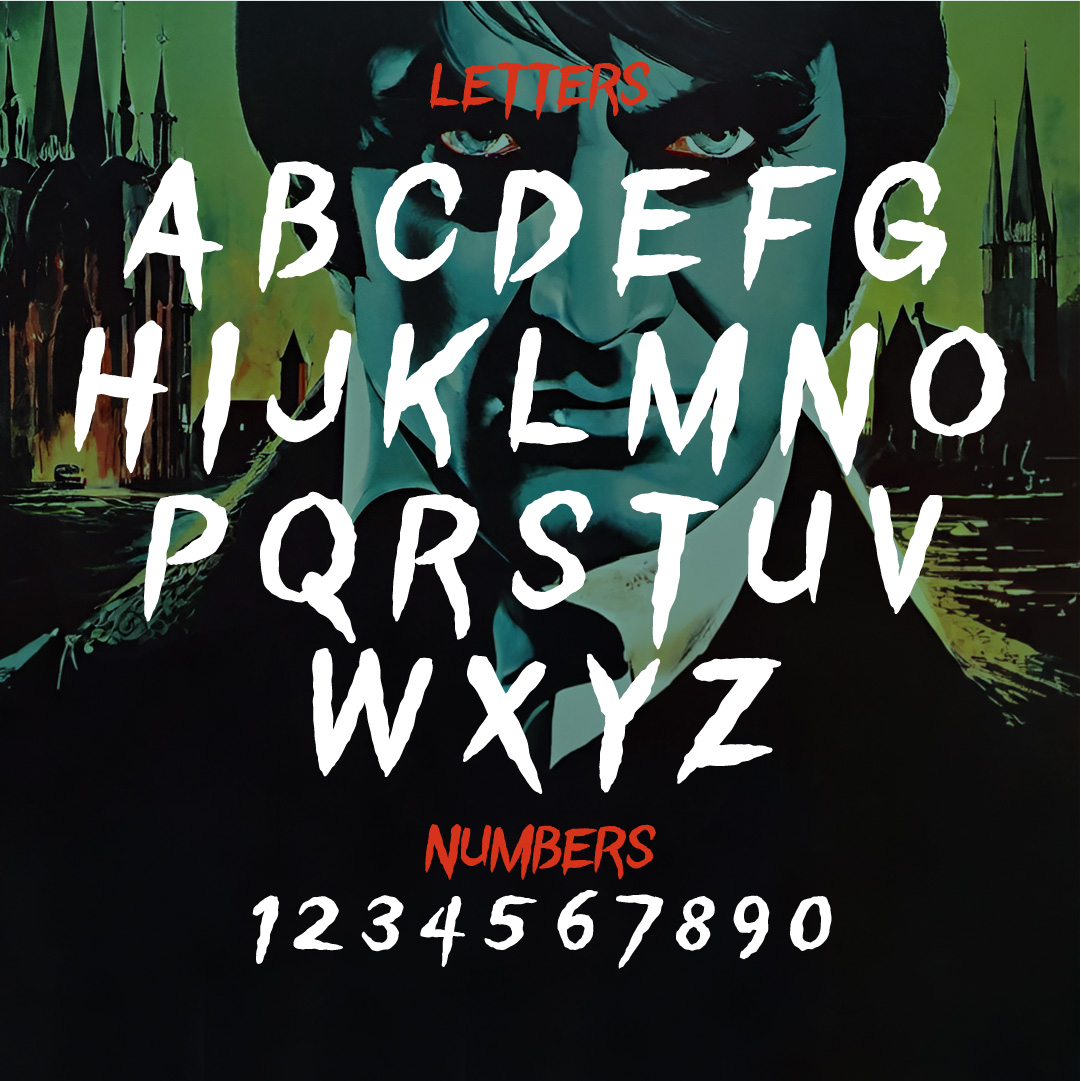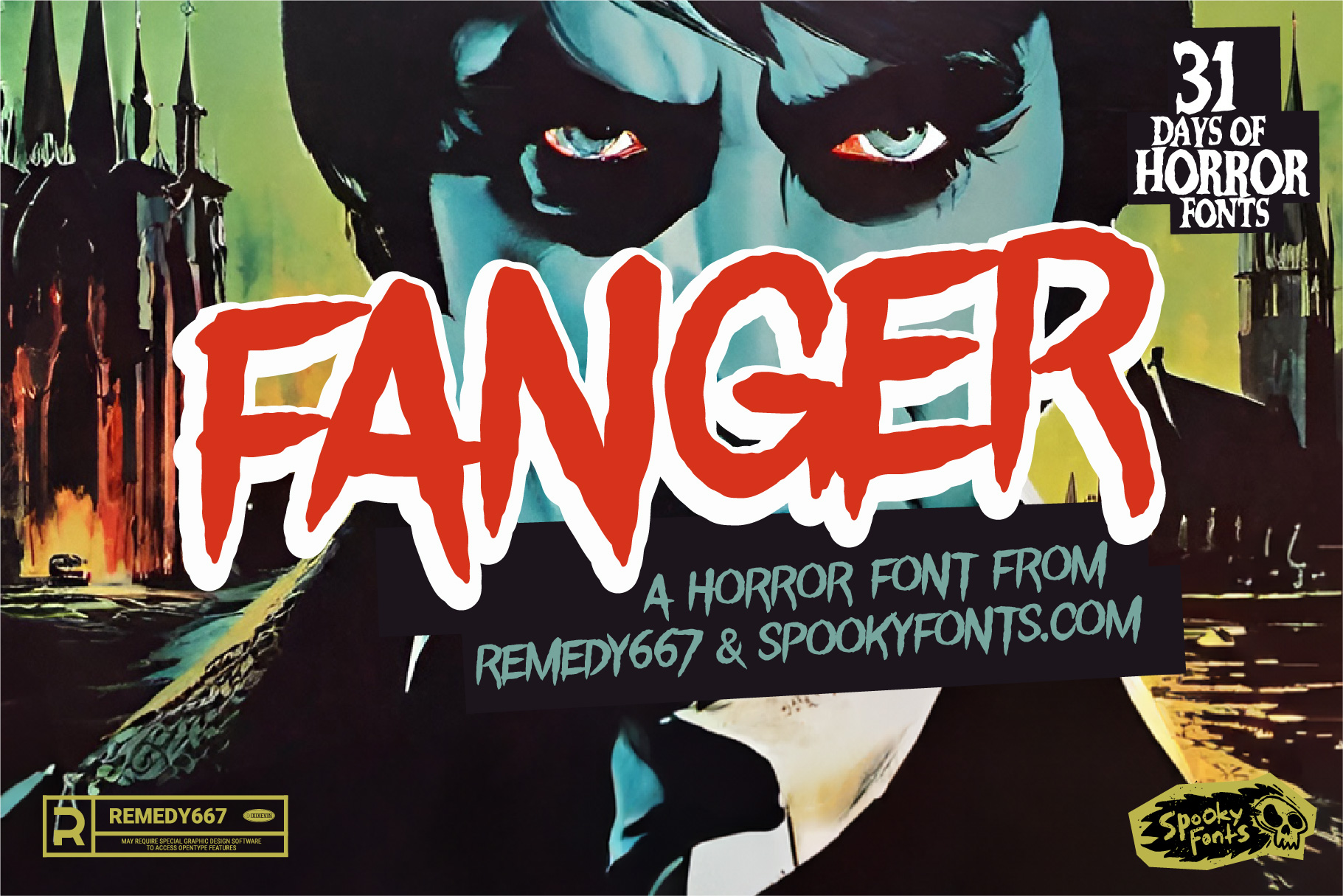
Fanger
Fanger: Vampire fang font for undead, chilling text.
Introducing Fanger, the font that’ll make your text come alive… or should I say undead! This sharp vampire fang style typeface will send shivers down your readers’ spines as they peruse your chilling documents. With its jagged edges and sinister curves, Fanger embodies the essence of horror and darkness, perfect for Halloween invitations, haunted house posters, or anything that needs a touch of eerie elegance.
But don’t be fooled by its spooky appearance; Fanger isn’t just about looks. Its unique design ensures maximum readability without sacrificing the spine-tingling effect you desire. The elongated fangs evoke a sense of danger while maintaining each letter’s clarity. Whether it’s titling an ominous chapter in a horror novel or adding some Gothic flair to a website header, this haunting font guarantees an unforgettable impact.
With Fanger on hand, unleashing your inner cryptkeeper has never been easier – it’s specifically crafted to enhance any macabre project with bone-chilling finesse. As you wield this wicked typeface like a vampire wields its fangs at night, prepare yourself for compliments from fellow monsters who know true darkness when they see it. So go ahead and embrace the macabre beauty of Fanger;
Includes Uppercase (A-Z)
Yes
Includes Numerals (0-9)
Yes